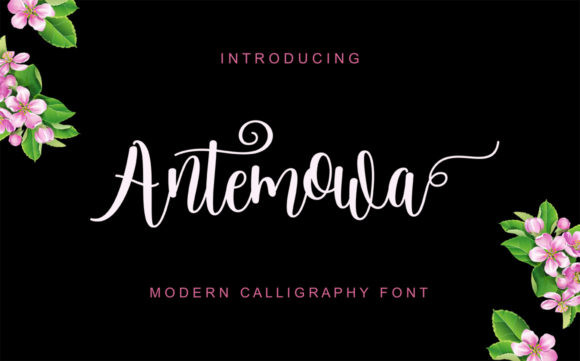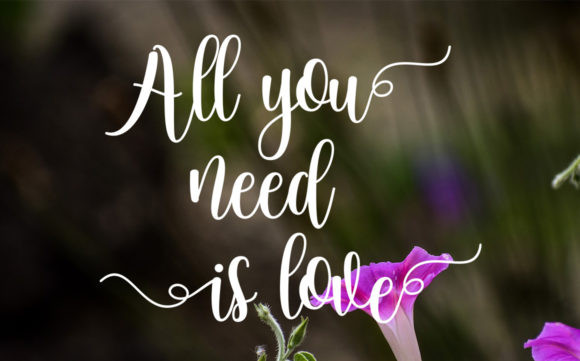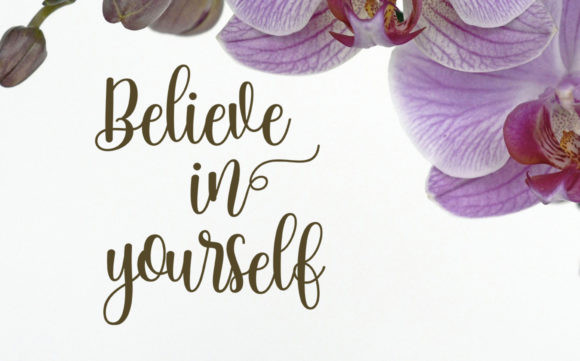
Antemowa Font
Antemowa is a magical handwritten font carefully created with a touch of elegance. This is a beautiful combination of timeless elegance and authentic calligraphy. It features an incredibly classic style, while still keeping a friendly feel. This font is the perfect font for making original and outstanding designs.